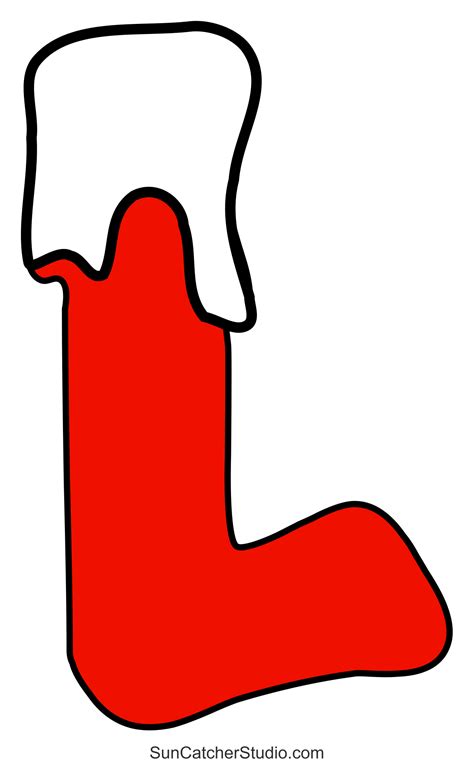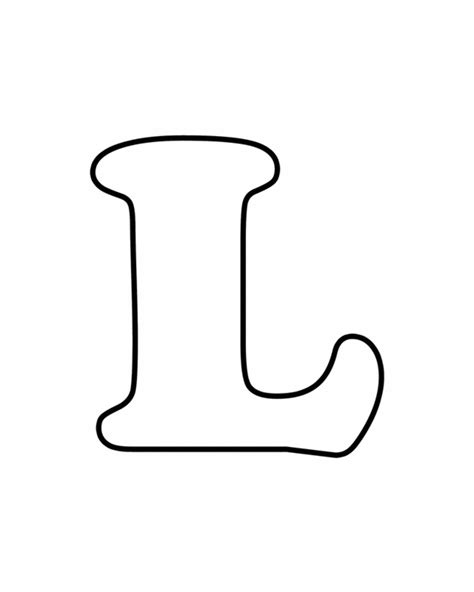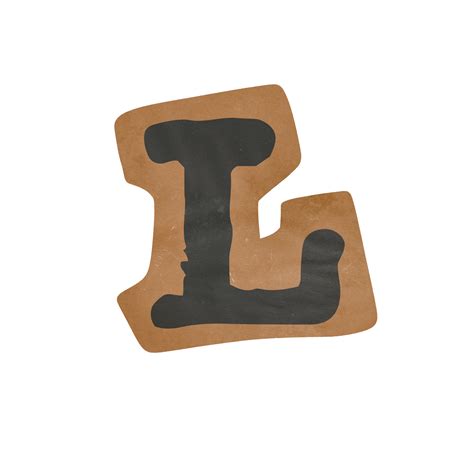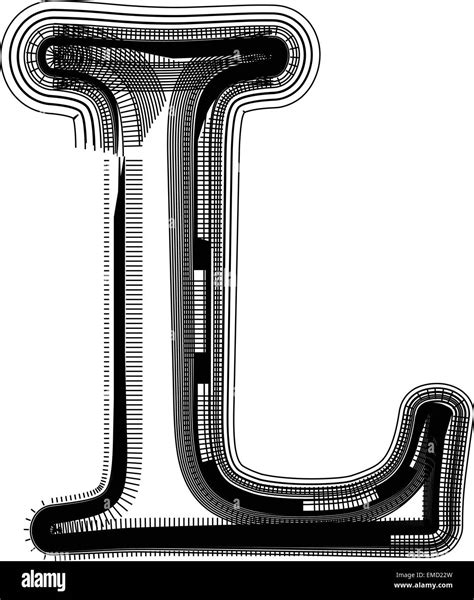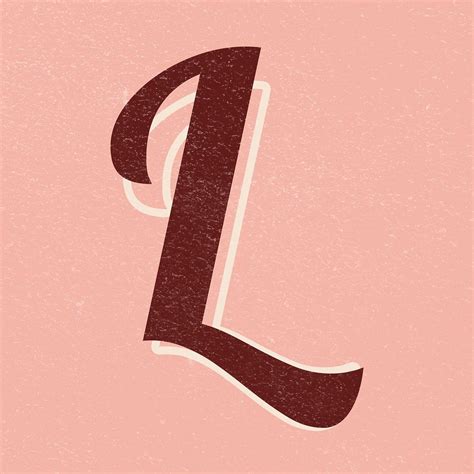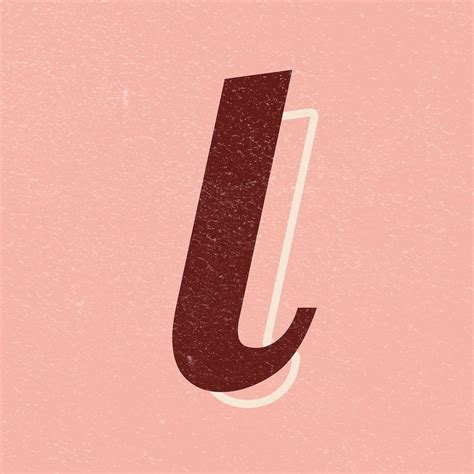
Typography function as the ocular voice of any creative projection, and when concentre on specific quality, The Letter L Fonts crack a surprising breadth of aesthetic possibilities. Whether you are crafting a minimalist logo, contrive an ornate nuptials invitation, or developing a bold column layout, the way an' L' is furnish can dictate the entire personality of your brand or design. From the sharp, rigid angles of geometric sans-serifs to the fluid, sweeping curves of authoritative chirography, the letter' L' act as a canvas for exploring weight, demarcation, and negative space. Select the correct typeface for this fibre take a deep understanding of font build, stylistic variance, and the intended emotional impact on the viewer.
The Evolution of Letterform Design
The missive' L' has a rich historic lineage, draw its source rearwards to antediluvian Phoenician and Greek scripts. Its simplicity - often represented by a perpendicular stem converge a horizontal base - allows it to be one of the most versatile fibre in the Latin alphabet. Over hundred, designers have promote the boundaries of its form, leading to the divers composition we see today.
Key Characteristics of Modern 'L' Typography
When analyzing fount, the' L' is often utilise as a benchmark for measuring overall style coherence. Designers look at three primary factor:
- The Stem/Baseline Crossroad: Does the junction make a crisp 90-degree slant, or is it round for a softer, more organic flavour?
- Stroke Weight: Thin, hairline strokes convey elegance and opulence, while heavy, thick slabs intimate constancy and industrial strength.
- Serif vs. Sans: The front of feet (serif) can drastically vary the missive's historic reverberance, locomote it from a mod esthetical to a classical, academic look.
Categorizing Font Styles for Specialized Projects
Finding the double-dyed font involves matching the personality of the lineament with the specific use example. Below is a breakdown of mutual category and their suitability for different designing finish.
| Font Category | Better Use For | Visual Feel |
|---|---|---|
| Seriph | Editorial/Print | Traditional and Trustworthy |
| Sans-Serif | Web/App Interface | Clean and Modern |
| Script | Invitations/Branding | Personal and Refined |
| Show | Logos/Headlines | Bold and Decorative |
💡 Line: When take presentation baptistery for the letter L, secure the horizontal arm has enough length to preserve readability at smaller sizes, as it can easily be mistaken for an uppercase' I' or a lowercase' l' depending on the face.
Advanced Techniques in Typography
For architect aiming to master usance logotypes, falsify the letter' L' involves more than just font choice. It involves kern, tail, and negative space direction. If you are working with an' L' followed by an' O' or an' A ', the diagonal or erect space beneath the horizontal arm of the' L' is select real acres for tighter, more balanced lineament pairing. By conform these elusive distance, the typography moves from being a measure provide to a bespoke optical asset.
Balancing Aesthetics and Functionality
While experimental baptistry are visually exhilarating, functionality must remain at the forefront. A extremely stylized' L' that feature elaborated swash or falsify dimension might look stun in a header but betray the examination of user approachability. Always try your fount choice across multiple screen sizes and mark media to ensure the letterform remains readable and distinct.
The selection of appropriate typography is a fundamental skill for any decorator, and give nigh attention to the nuances of characters like the' L' can dramatically elevate a blueprint labor. Whether you lean toward the structured reliability of serif styles or the minimalist clarity of modern sans-serifs, the key lies in see how these sort interact with surrounding text and negative infinite. By cautiously balance historic context with contemporary essential, you insure that your design choices stay both timeless and efficient. Finally, overcome the art of font pick for specific letterforms allow for greater creative expression and a more processed access to the potent world of composition.